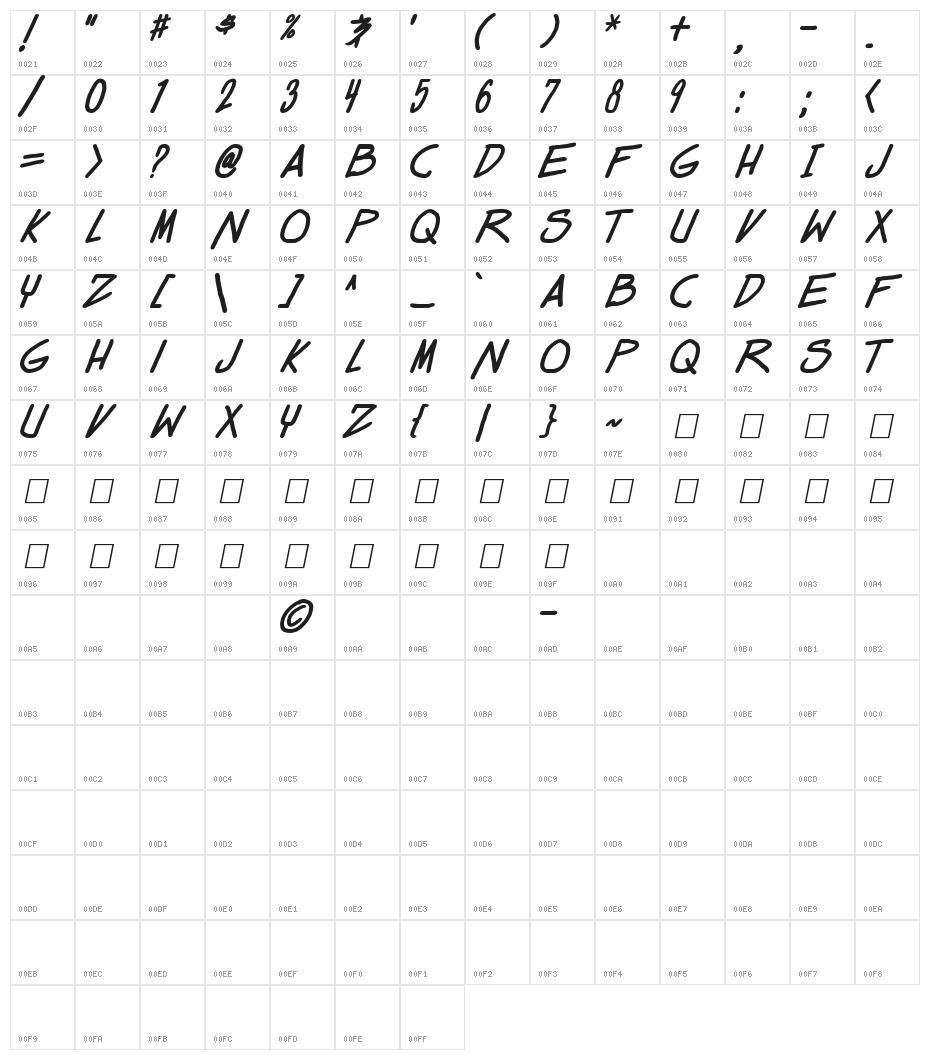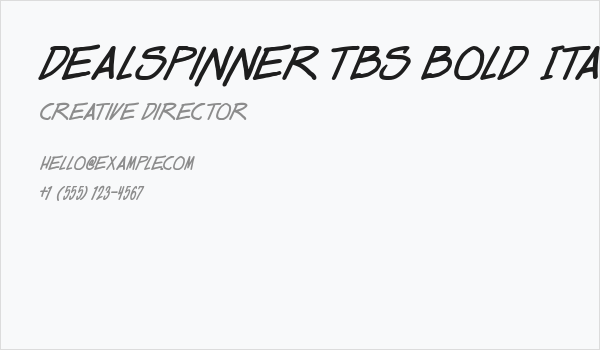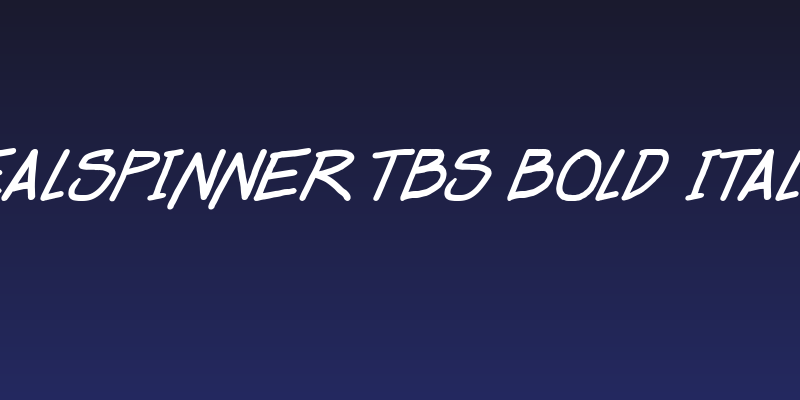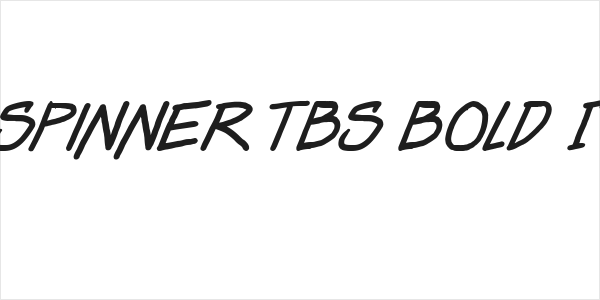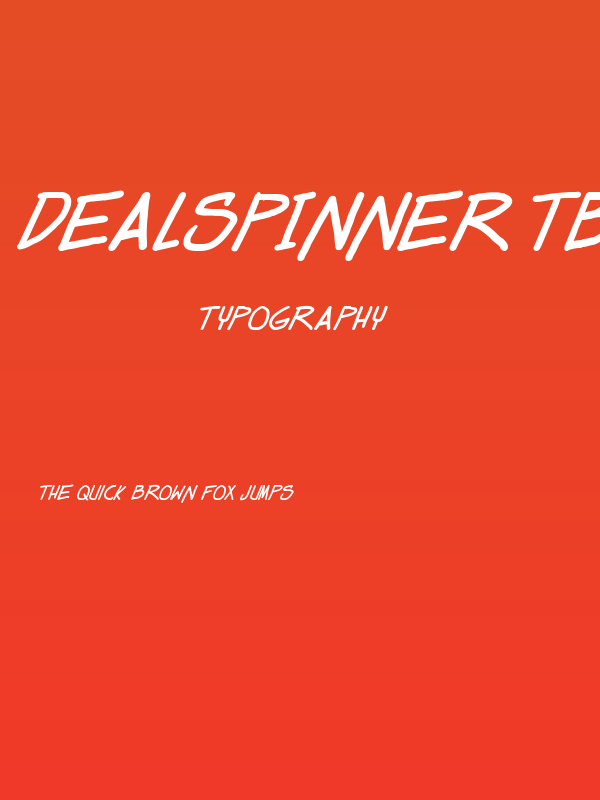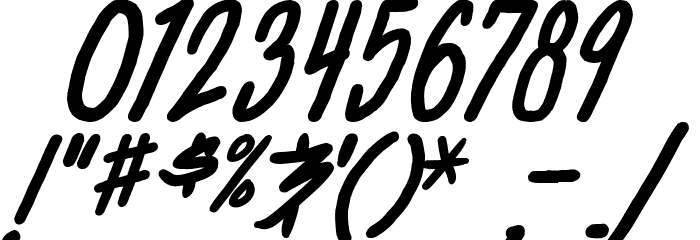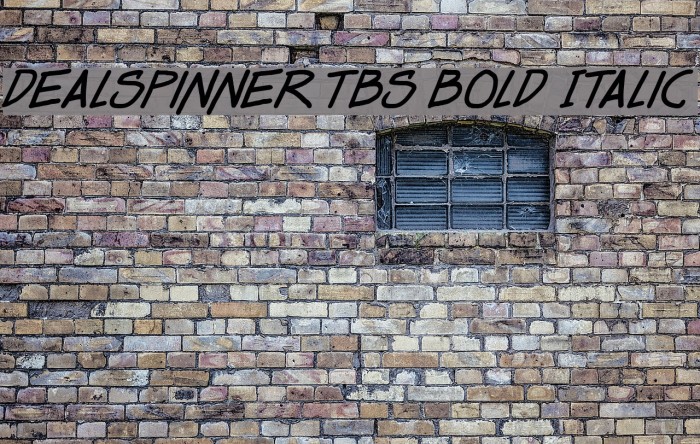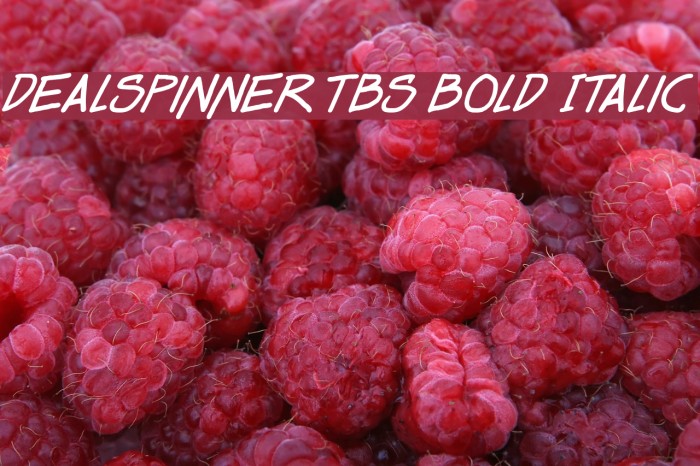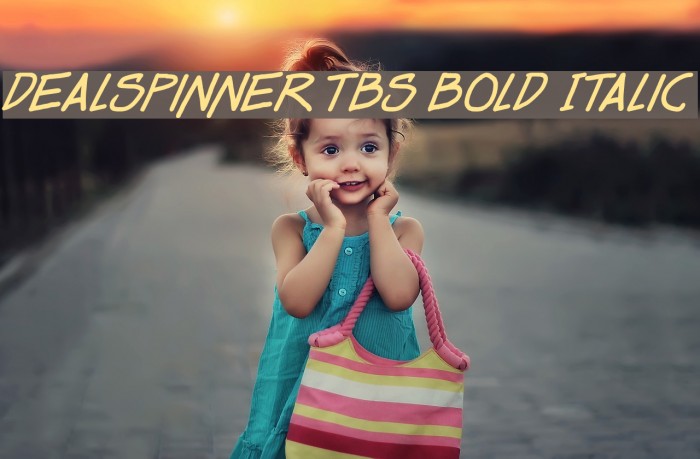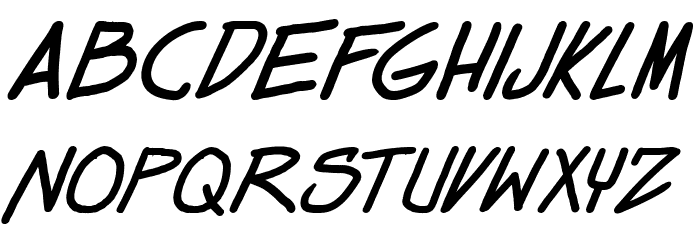
Dealspinner TBS Bold Italic Font
Dealspinner TBS Bold Italic Description
This font features a bold and italic style with a dynamic and energetic appearance. The letters are slightly slanted, giving a sense of motion and fluidity. The strokes are thick and consistent, contributing to its boldness. The characters have a handwritten feel, with smooth curves and a casual, informal look. This style is eye-catching and expressive, making it suitable for designs that require a personal touch. The numbers and special characters maintain the same bold and italic characteristics, ensuring uniformity across all glyphs.
| Proposed Projects | Ideal for branding, posters, and creative projects that require a bold and personal touch. |